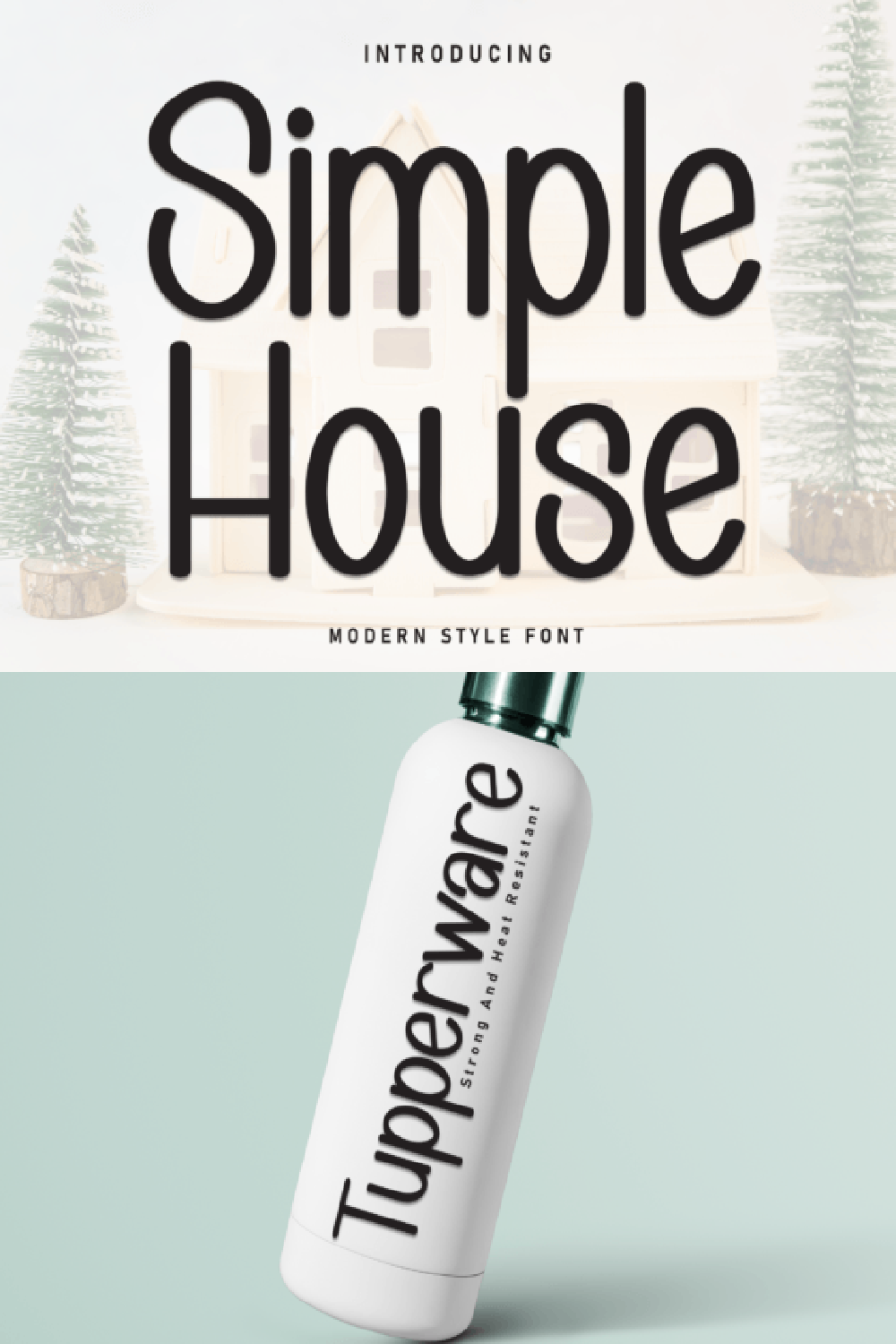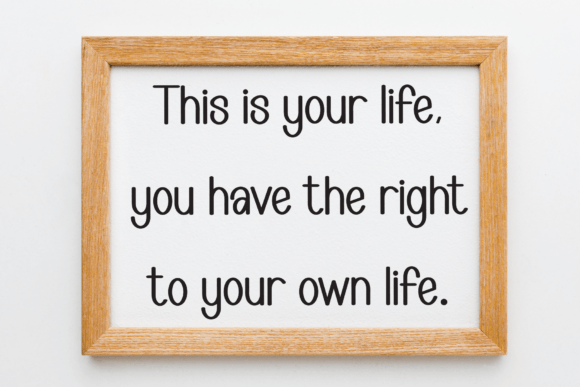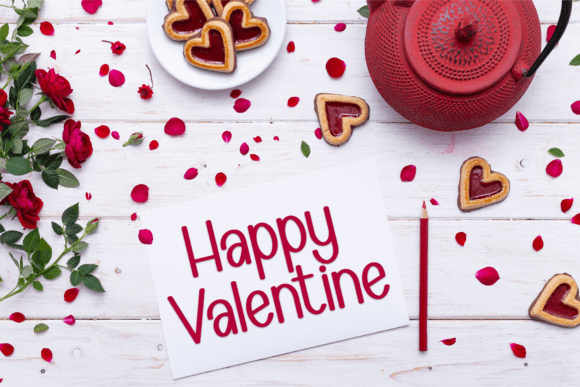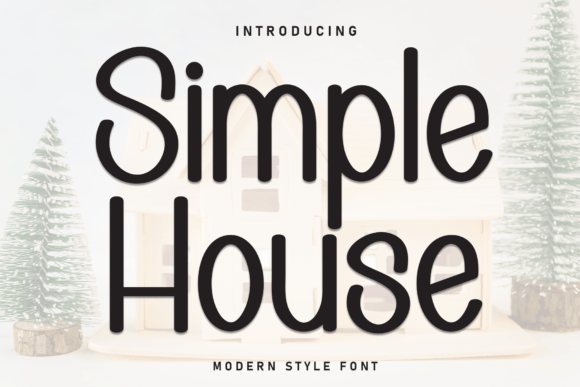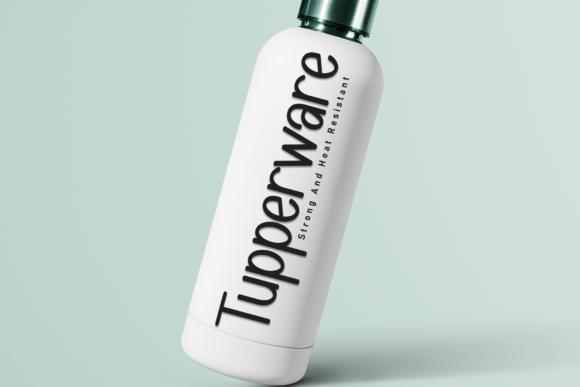
Simple House Font Font
About the Simple House Font Font
Add a touch of class to your work with the Simple House Font Font, a truly exceptional typeface. Simple House is a sweet and friendly handwritten font. Cute and fun, this font is ideal for writing wedding invitations, cards, or any other design that might need a fun touch!